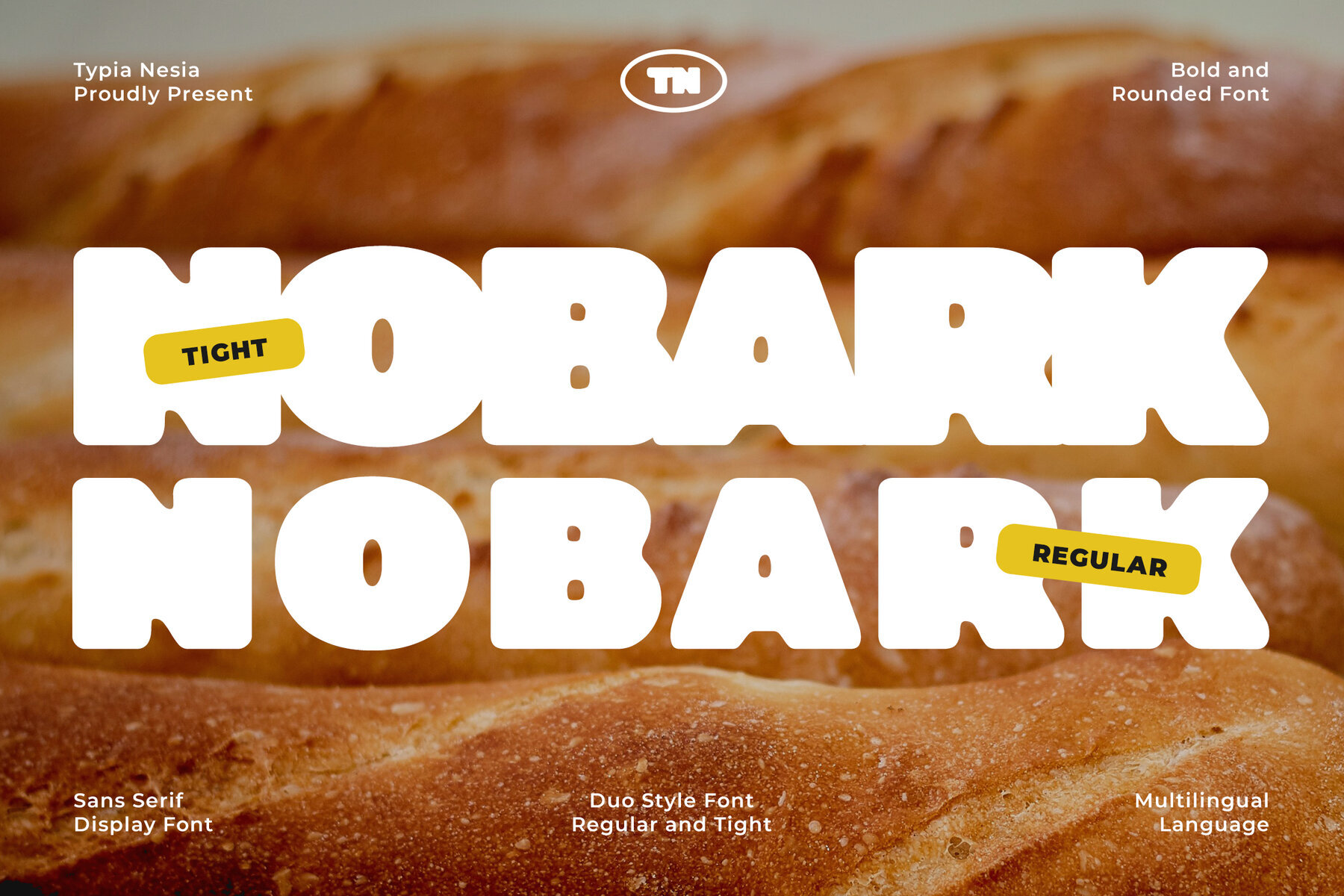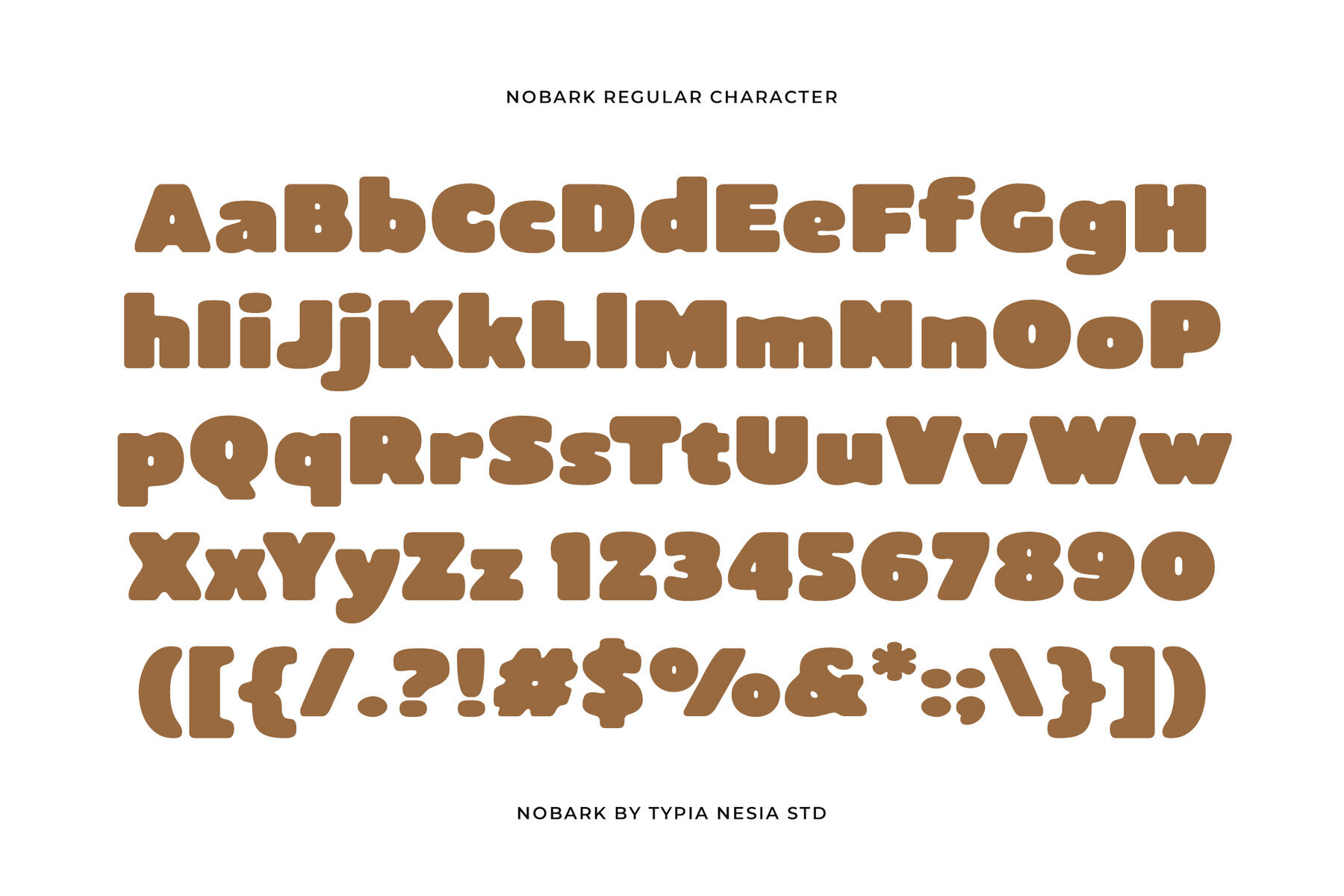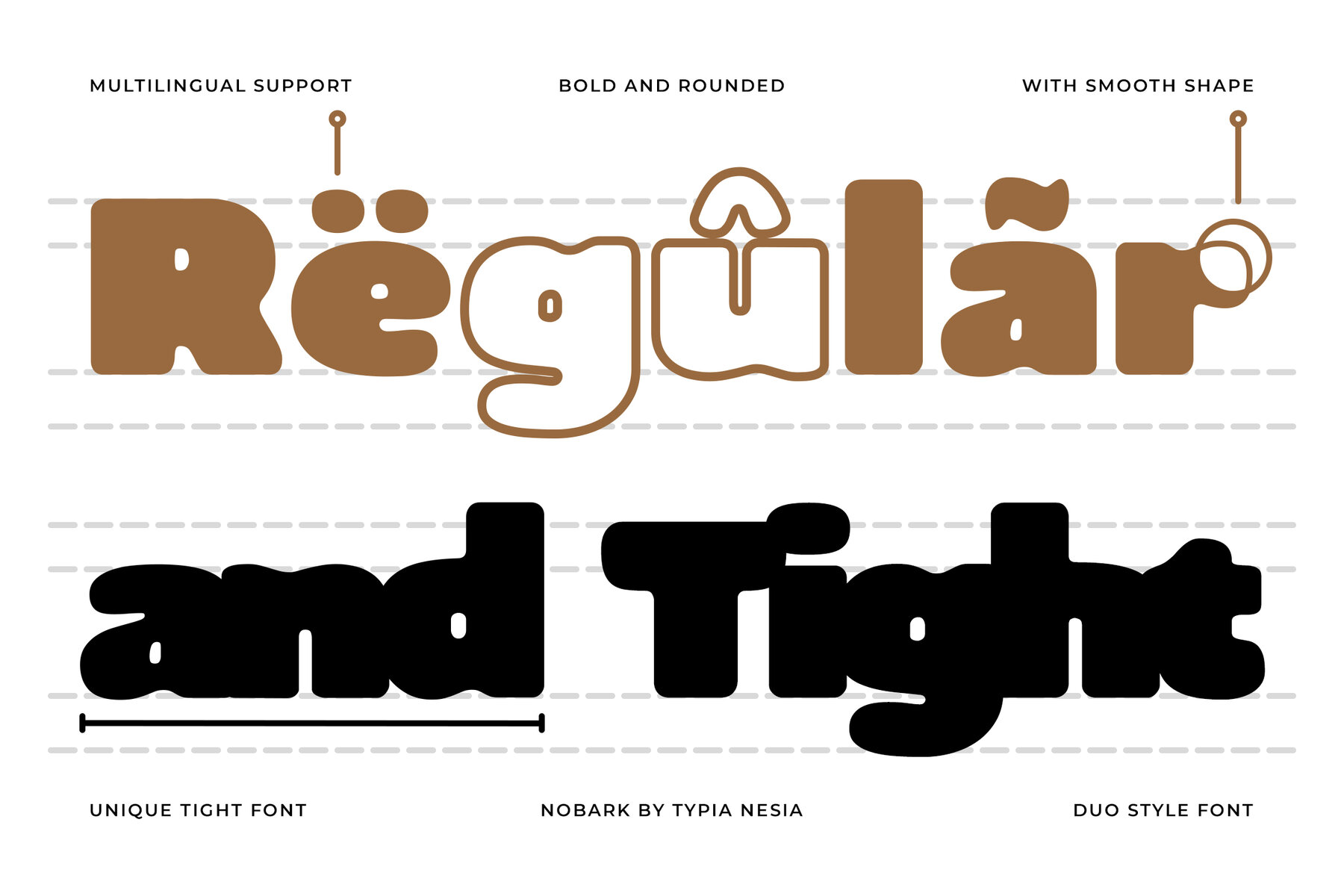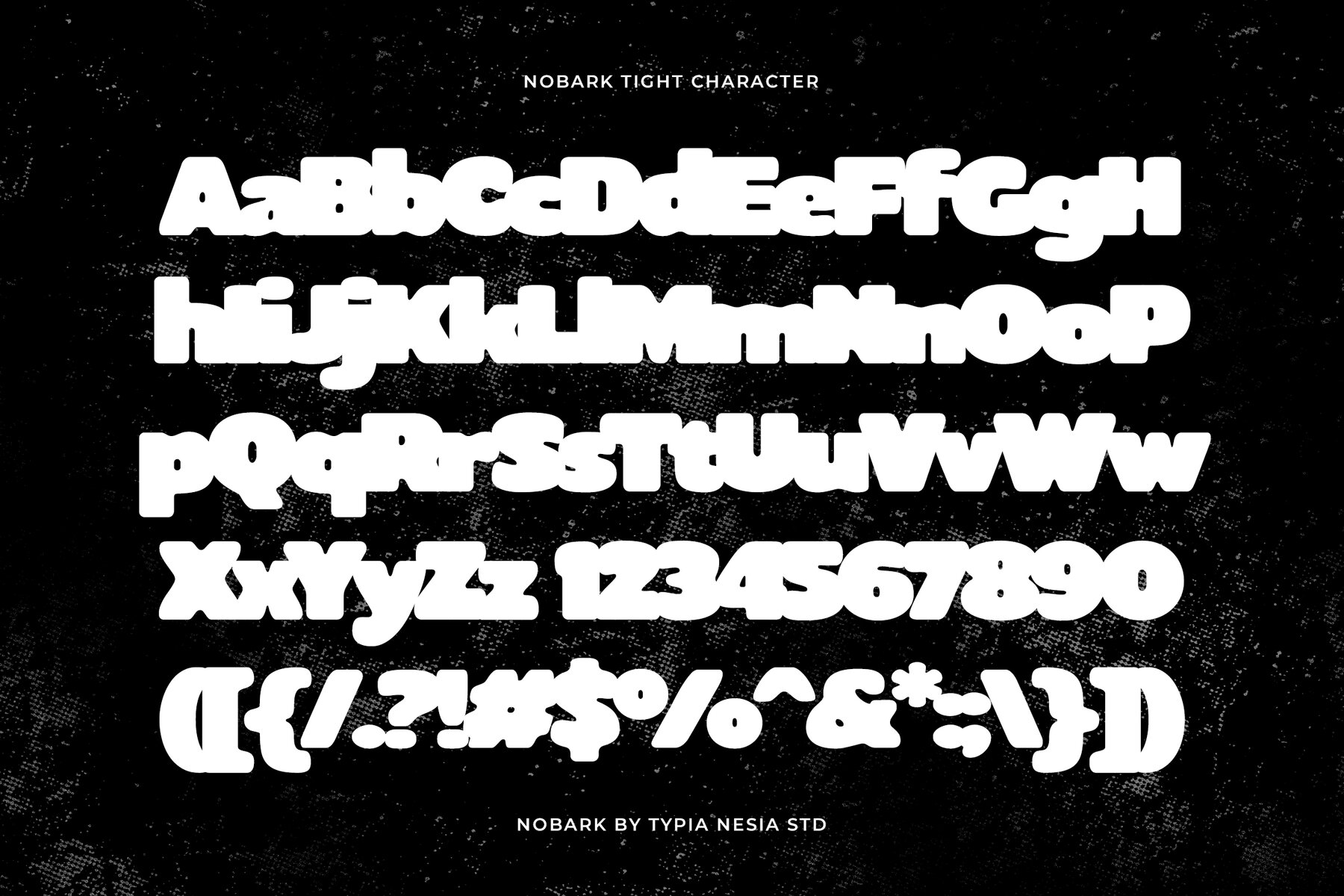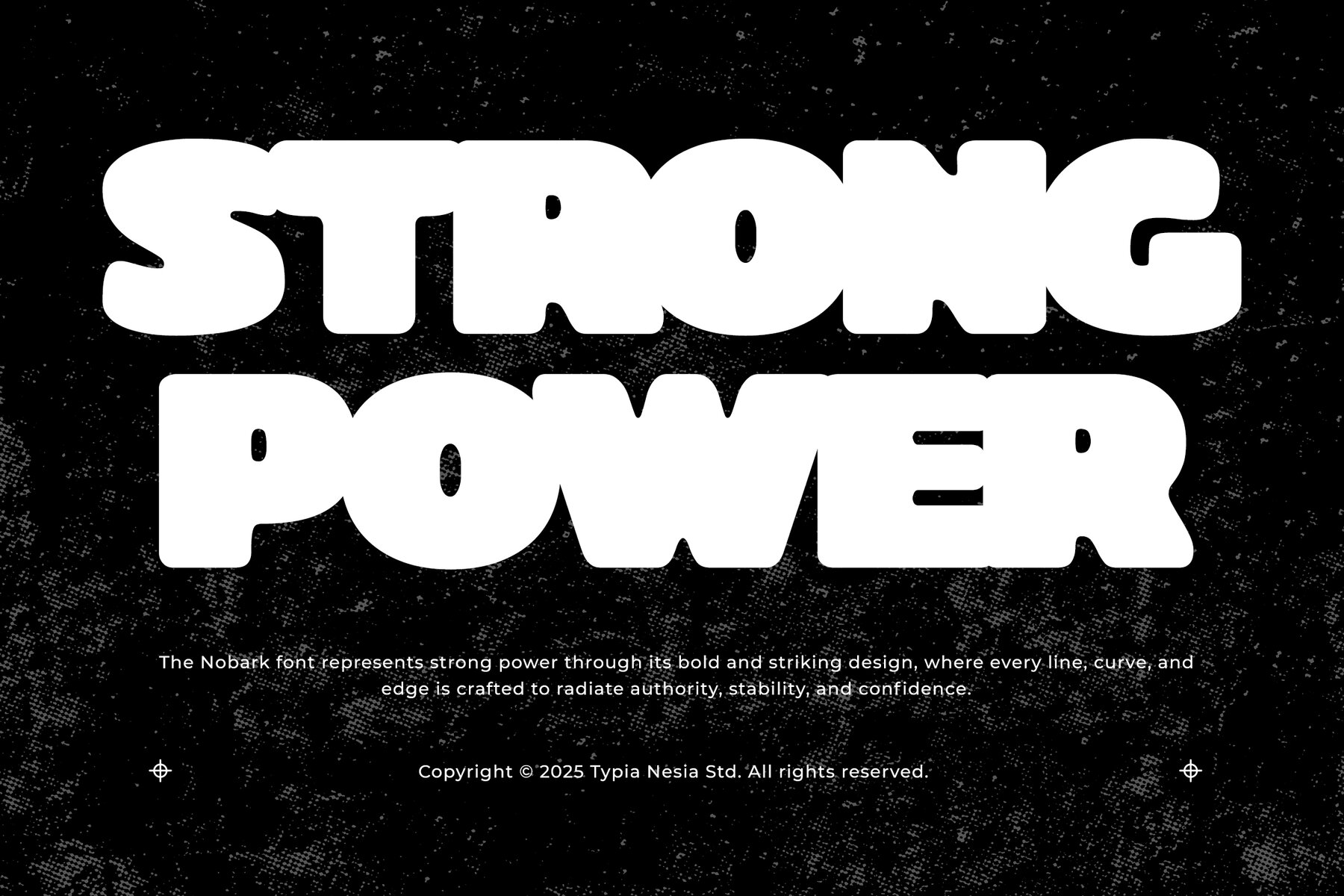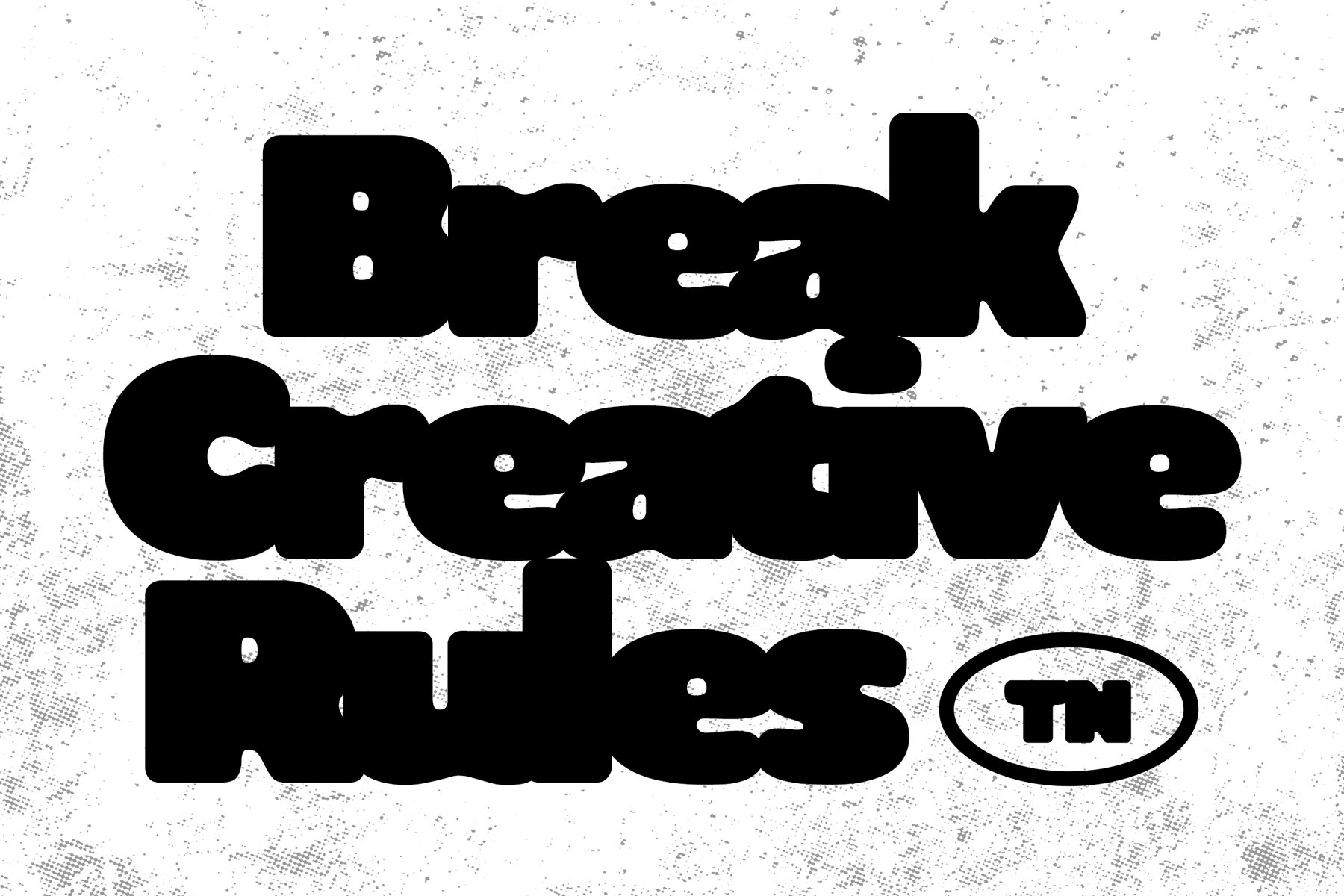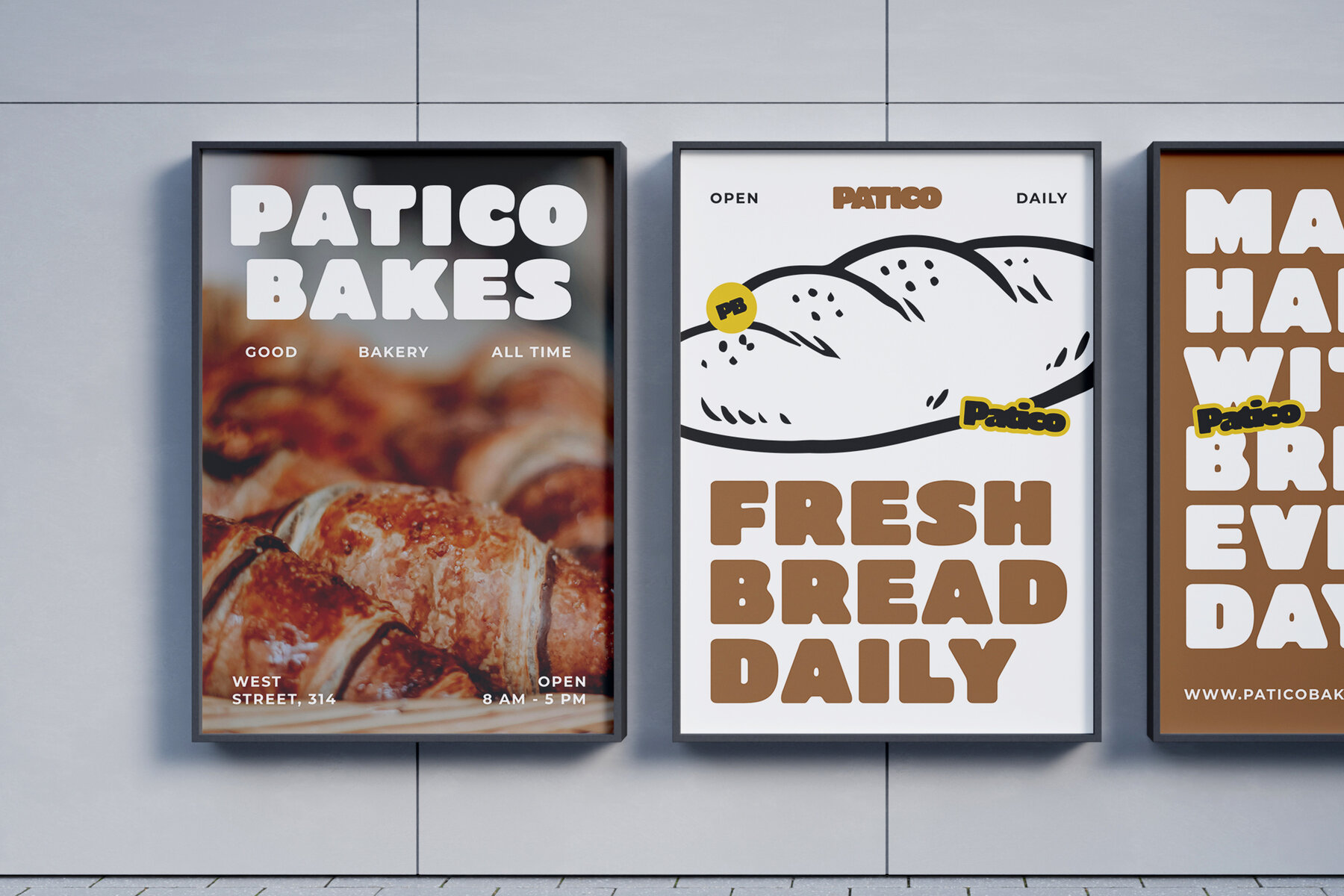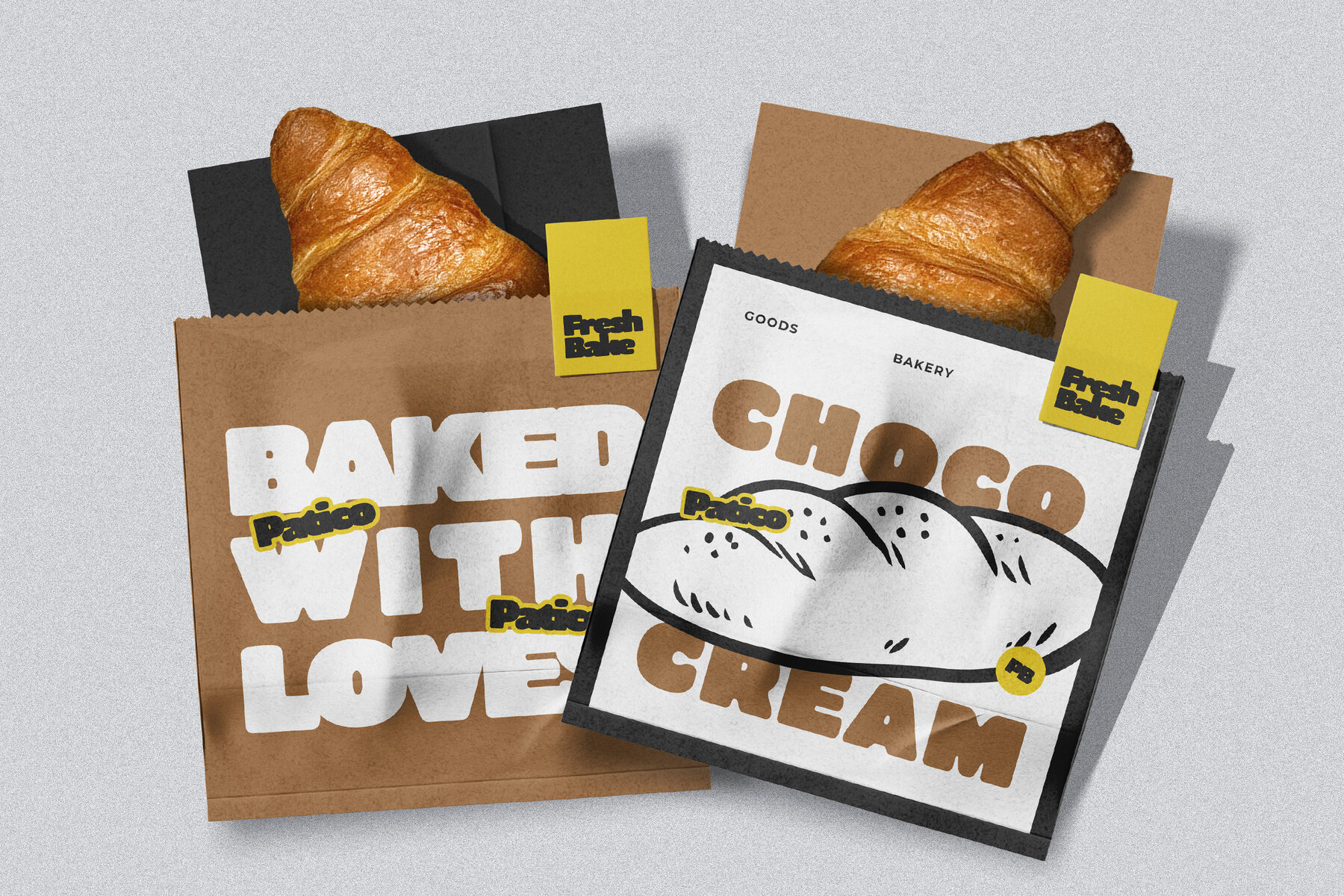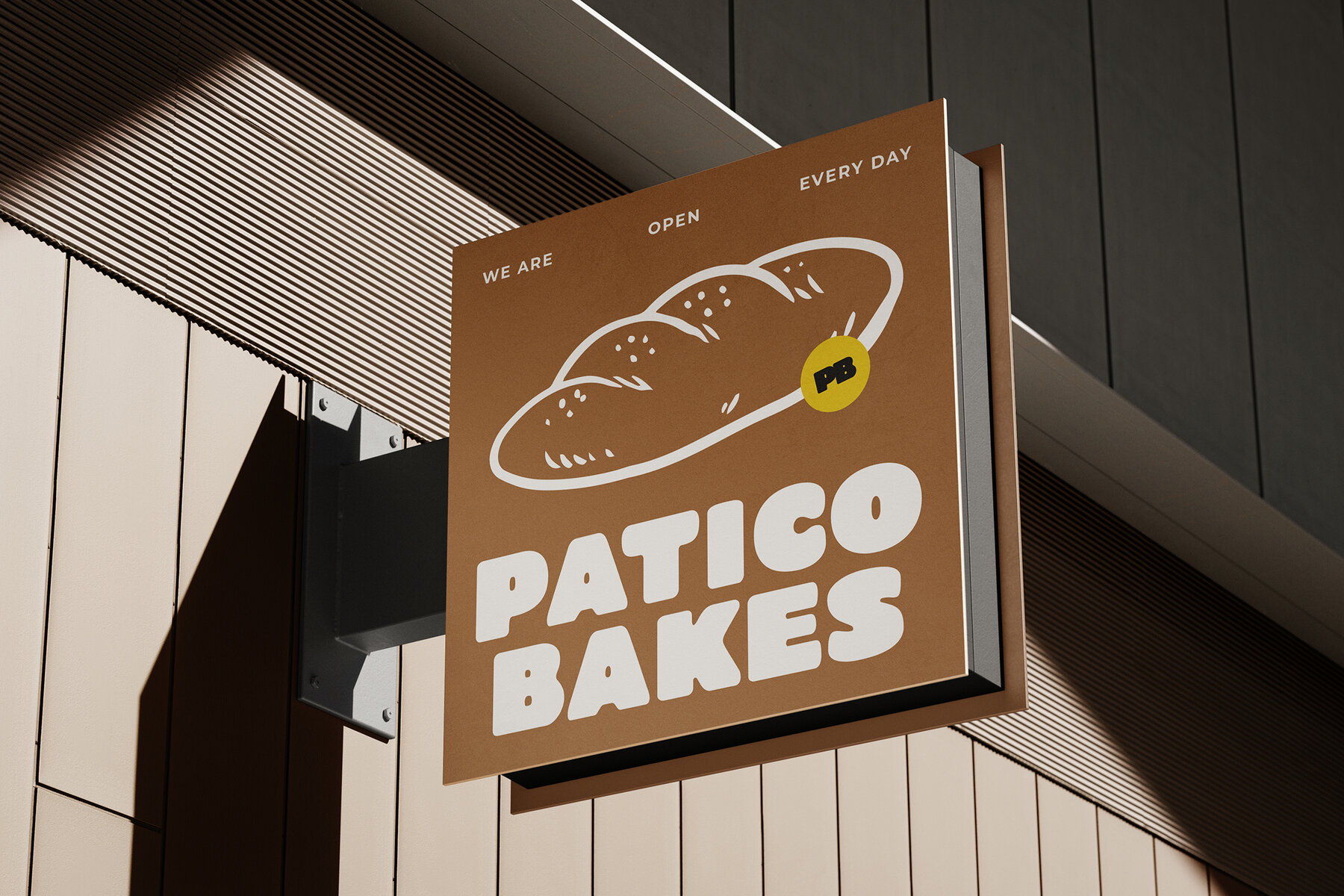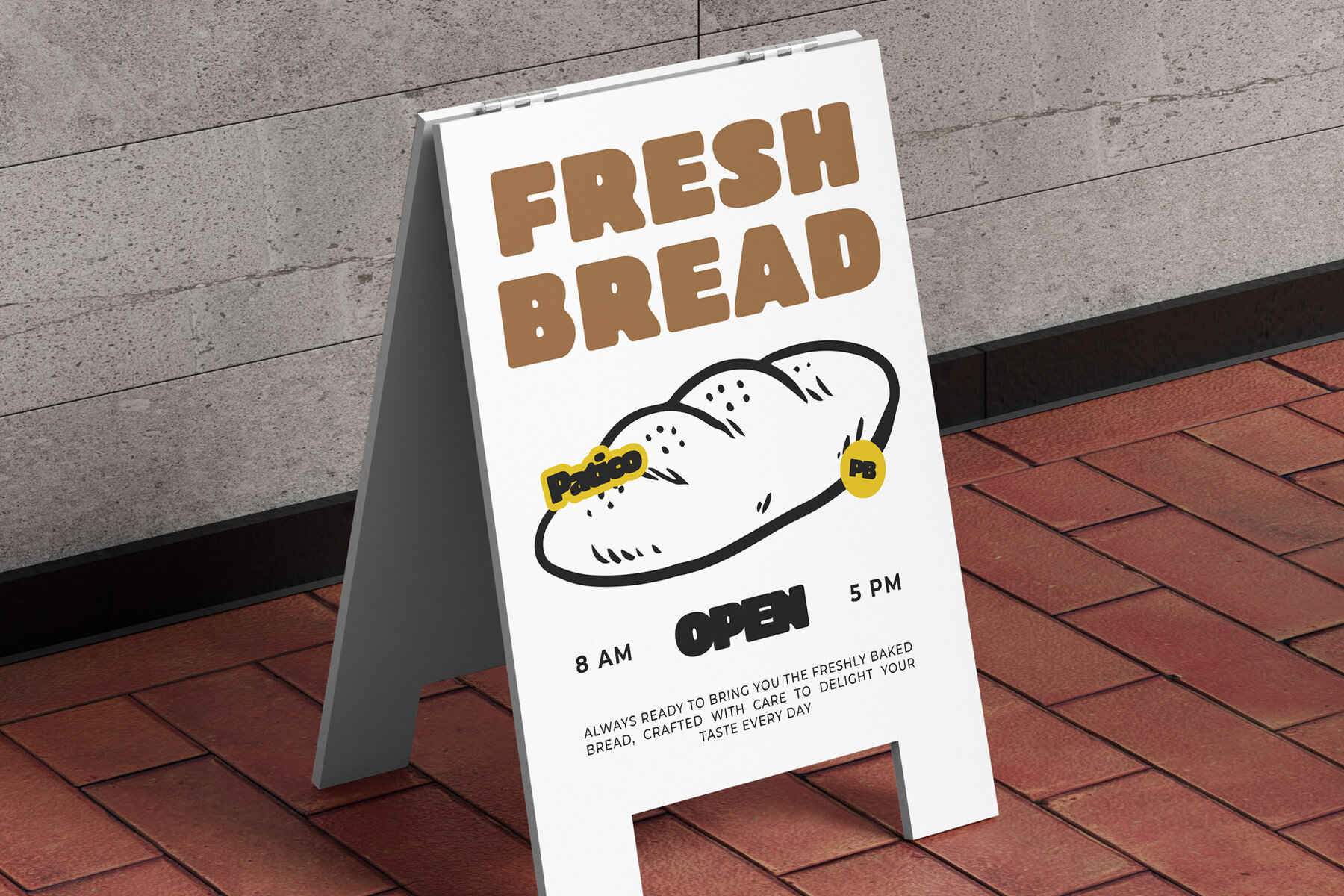
Nobark Font
Nobark is a contemporary sans-serif designed to introduce an element of fun and approachability to your creative endeavors. With its bold and chunky aesthetic, Nobark boasts smooth, rounded edges that offer a friendly, inviting quality. This font excels in delivering high-impact headlines and unforgettable logo designs. The suitability of Nobark spans various sectors, making it a perfect choice for branding and packaging within the food, kids, cafe, and bakery industries. Its modern, bold style ensures your message is conveyed with clarity and strong visual appeal. Features:Nobark: Modern Rounded Bold Chunky Font